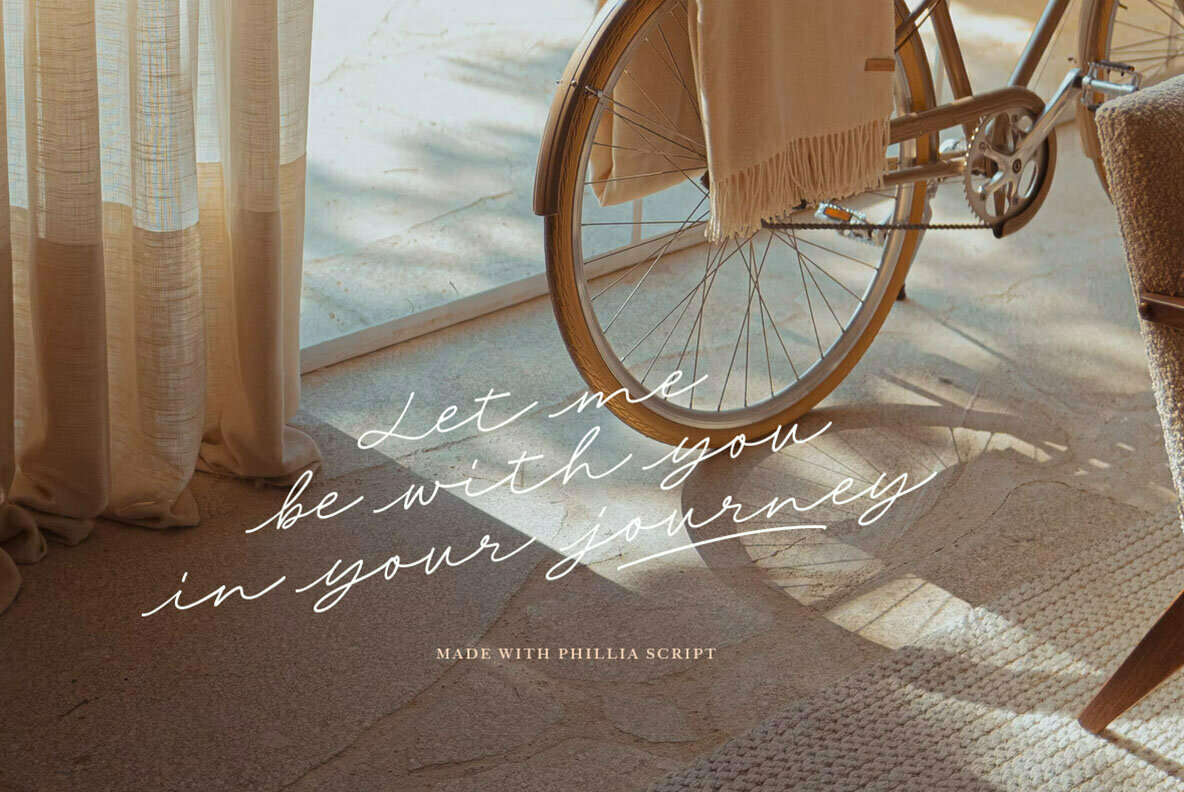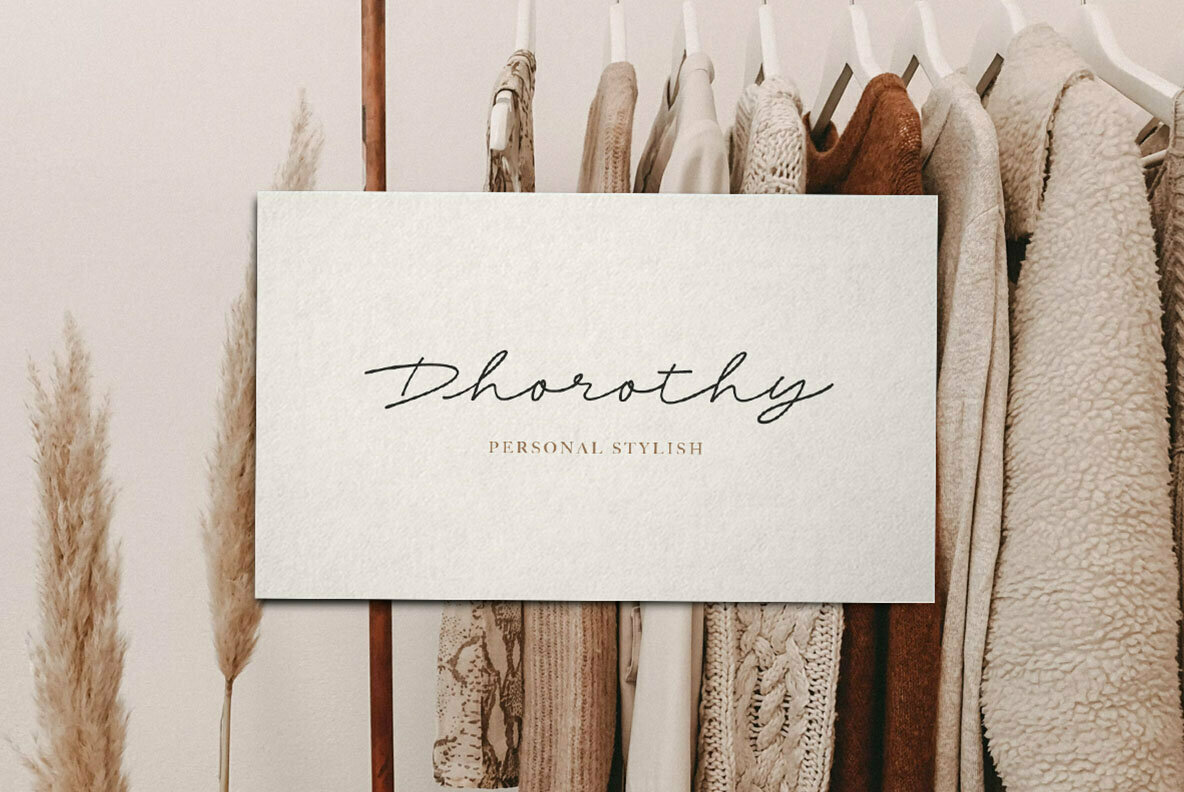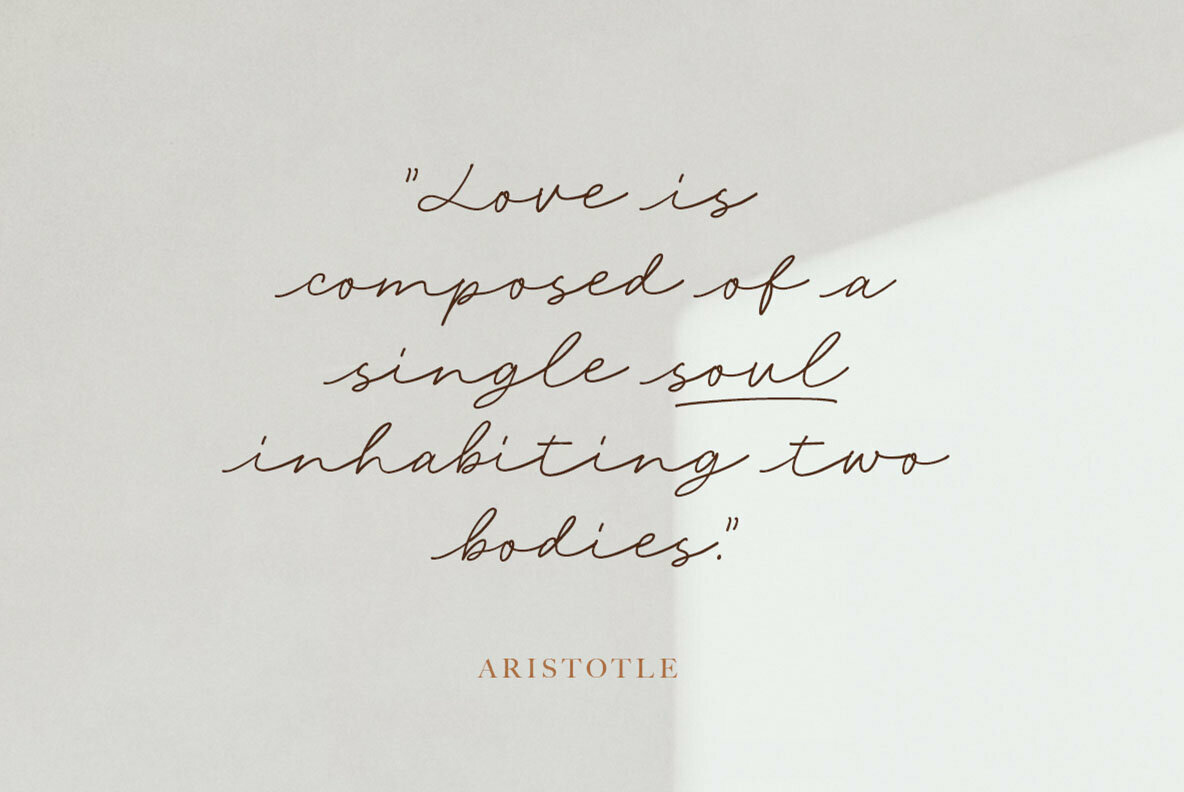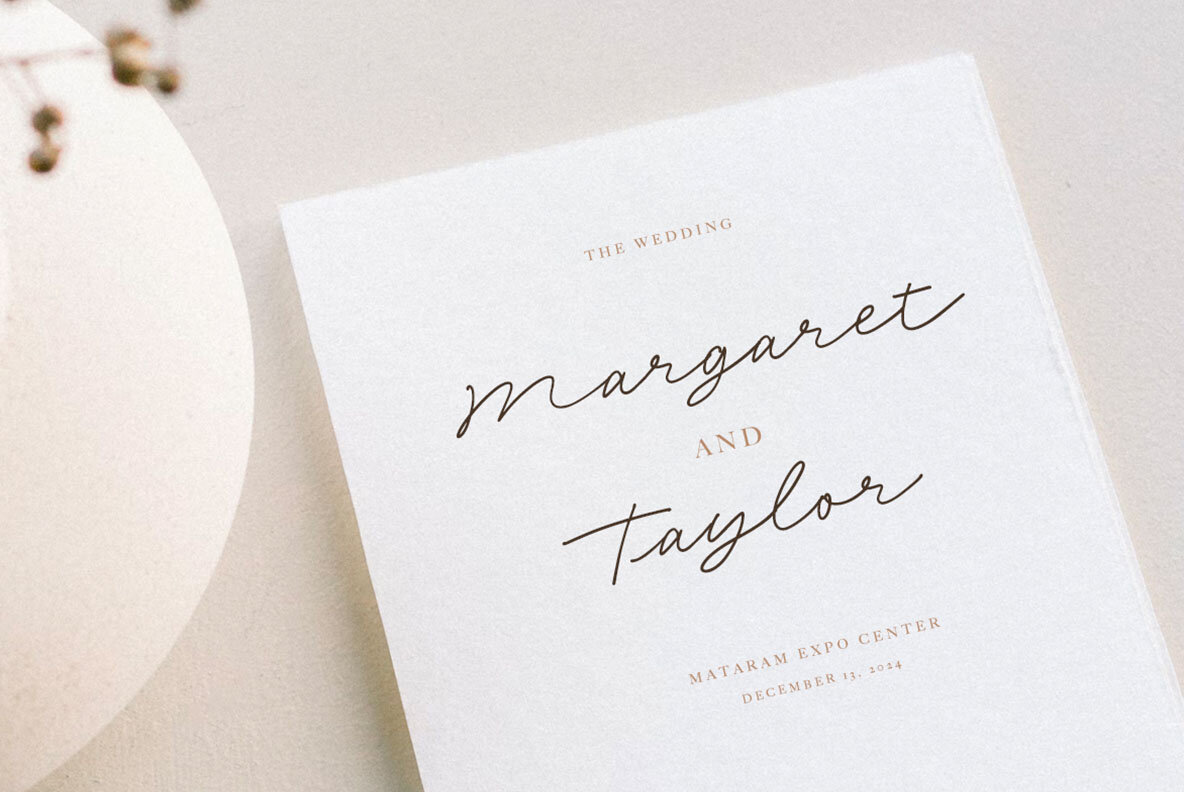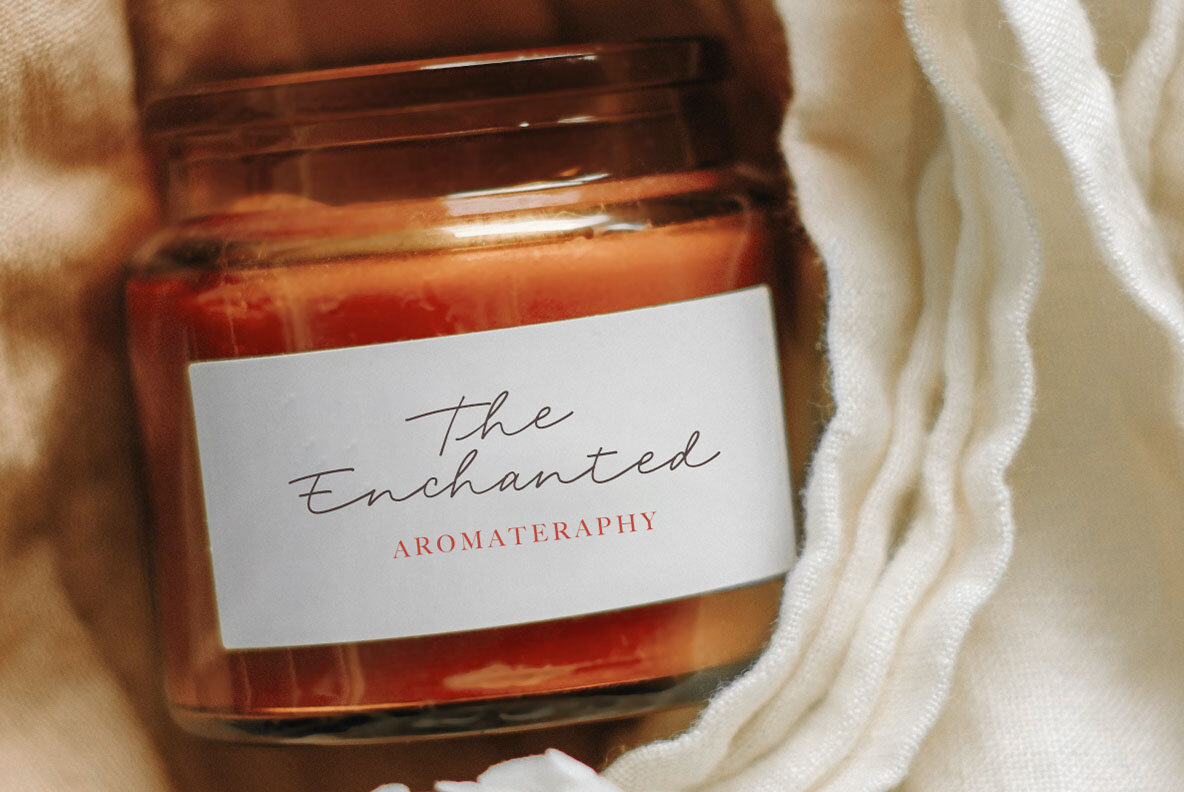
Phillia Font
Phillia Regular
Phillia presents a seamless blend of elegance and simplicity in a signature script format, making it suitable for a myriad of applications. Whether designing a personalized signature, creating a distinctive logo, or crafting quotes, this font proves indispensable. Phillia's flexibility extends through its compatibility with other fonts, allowing for harmonious pairings with sans and script styles. Unlock new design possibilities with Phillia, a versatile tool for graphic designers seeking both minimalism and functionality.Phillia: A Minimal and Essential Signature Script